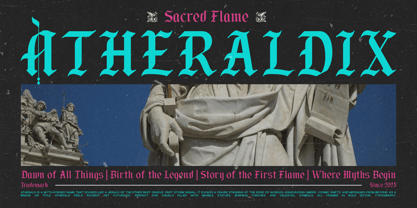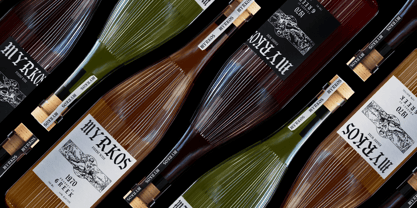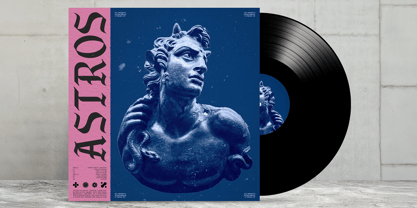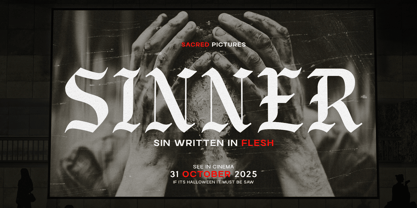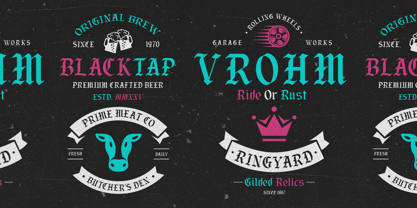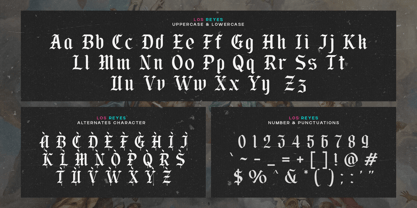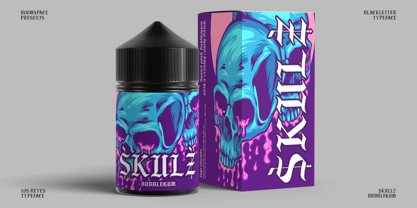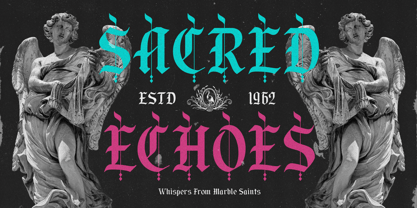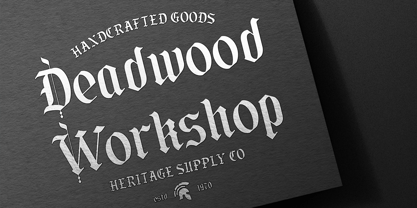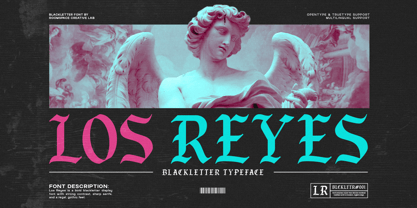
Los Reyes
A regal, sharp, and modernized blackletter font crafted for bold branding and dramatic storytelling. Introducing Los Reyes is a bold gothic blackletter typeface inspired by medieval artistry and modern editorial design. With sharp serifs, dramatic curves, and rich contrast, this font elevates any layout with a sense of heritage and intensity. Perfect for fashion labels, tattoo studios, poster design, music artwork, and creative branding Los Reyes brings expressive gothic elegance into the modern world. Font Features: Bold blackletter architecture Sharp serifs and ornamental details Uppercase & lowercase Multilingual support PUA encoded Perfect For : Streetwear branding, gothic posters, book covers, tattoo graphics, packaging, illustrations, album art, editorial layouts.